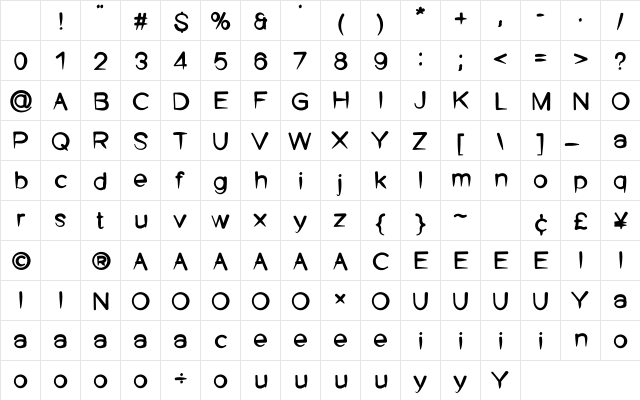
Complete ST Hanekam Ink glyph index. Displaying only characters natively supported by ST Hanekam Ink font.
ST Hanekam is a composed and adaptable typeface that performs quietly and consistently across a wide range of design contexts.
Who designed the ST Hanekam Ink font?